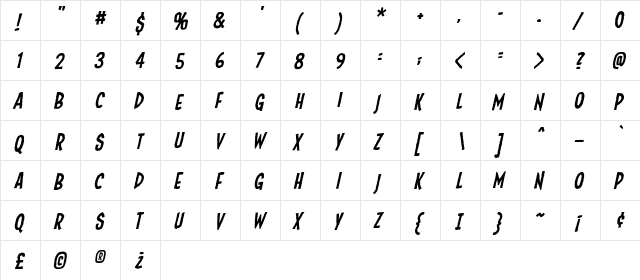
Fundead BB Italic
| Foundry | Nate Piekos. Blambot.com |
| Designer | Nate Piekos |
Design Context for Fundead BB Typeface
Fundead BB has an approachable, lighthearted character — its loose, expressive forms are well-suited to children's content, casual branding, and fun-first design. Its italic angle brings a sense of urgency and motion to the letterforms.
Font Pairing: Pairs well with a rounded or humanist sans for body copy, maintaining the friendly tone without relying on Fundead BB to carry extended reading.
Pro Tip: Avoid using Fundead BB for long passages of text — it works best for headlines, labels, and short calls to action.